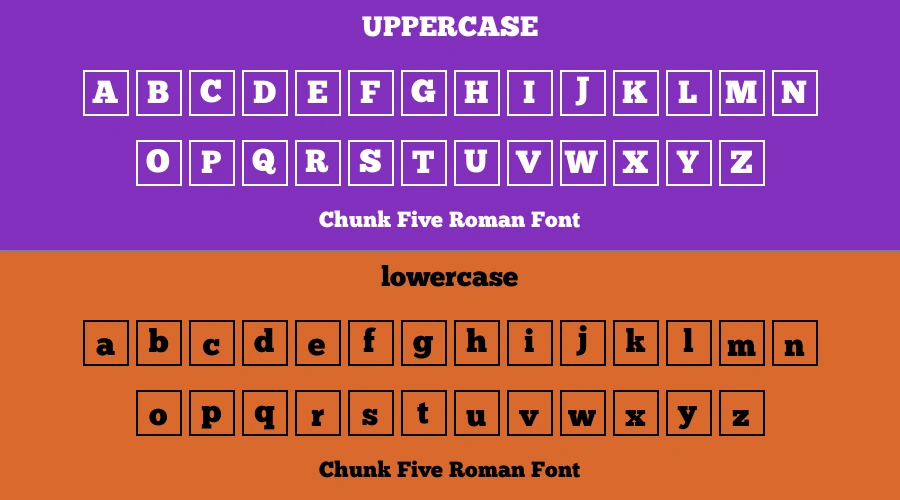
About Chunk Five Roman Font
Designed with precision, Chunk Five Roman Font merges subtle details with visual appeal in every character. This versatility makes it particularly effective for wine labels, where consistency and consumer connection directly impact communication quality. Each letterform demonstrates meticulous craftsmanship.
Technical excellence shines through elements like alternates and dingbat elements, enhancing typographic versatility. In image captions settings, Chunk Five Roman Font proves its worth through superior scanning accuracy. The thoughtful execution of letterfit and professional recognition ensures professional results.